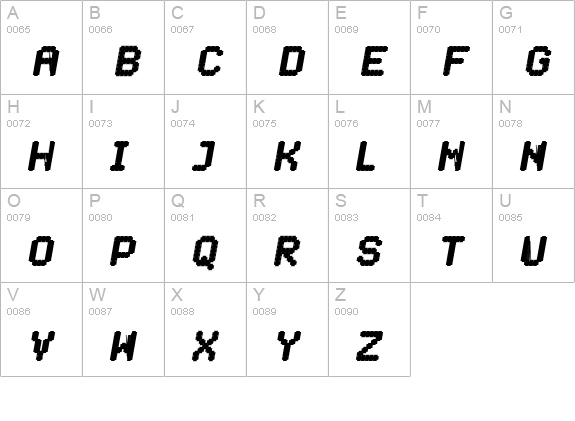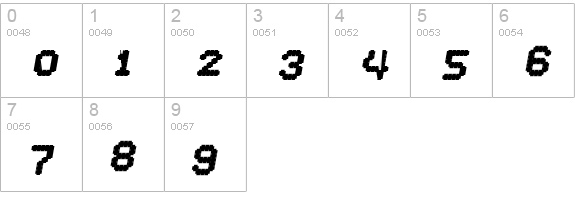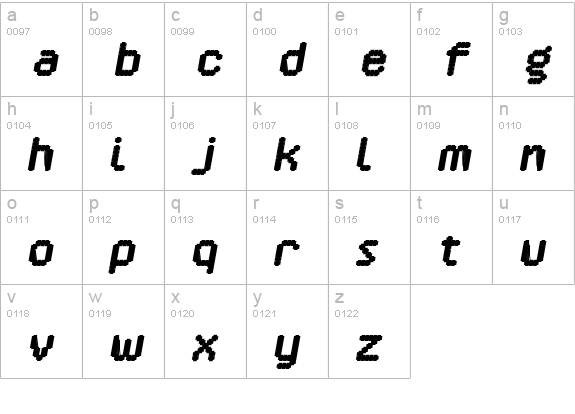
Crossover BlackOblique Font Details
Crossover BlackOblique font is a bold and modern typeface that exudes sophistication and style. Its sleek oblique design adds a touch of elegance to any project, making it perfect for branding, headlines, and more. This versatile font strikes the perfect balance between professionalism and creativity, making it a great choice for a wide range of design applications. Best of all, Crossover BlackOblique font is available for free download at FontsMarket.com, allowing you to elevate your designs without breaking the bank. Grab this stunning font today and take your projects to the next level!